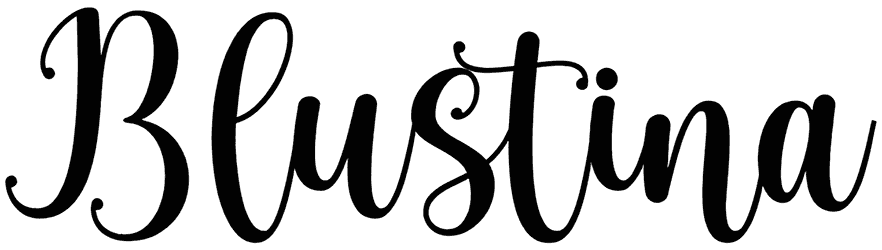
Blustina Font
Blustina is a calligraphy font that features gorgeous, feminine, flowing characters that are great for hand-lettering, branding, posters, etc. If you would like to add this useful tool to your arsenal, you can get it rig…
Blustina is a calligraphy font that features gorgeous, feminine, flowing characters that are great for hand-lettering, branding, posters, etc. If you would like to add this useful tool to your arsenal, you can get it right now for free from the font section of RB’s website. You may choose a few more script fonts from our extensive collection to use alongside this one.